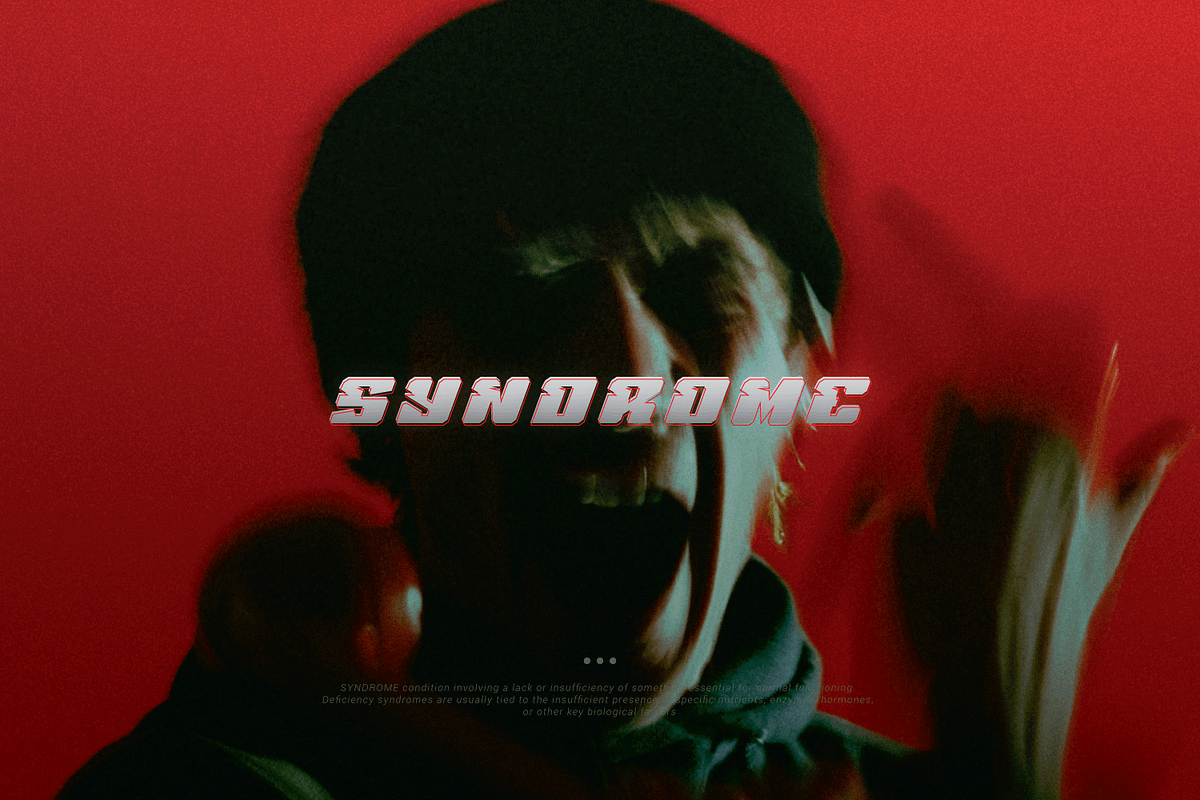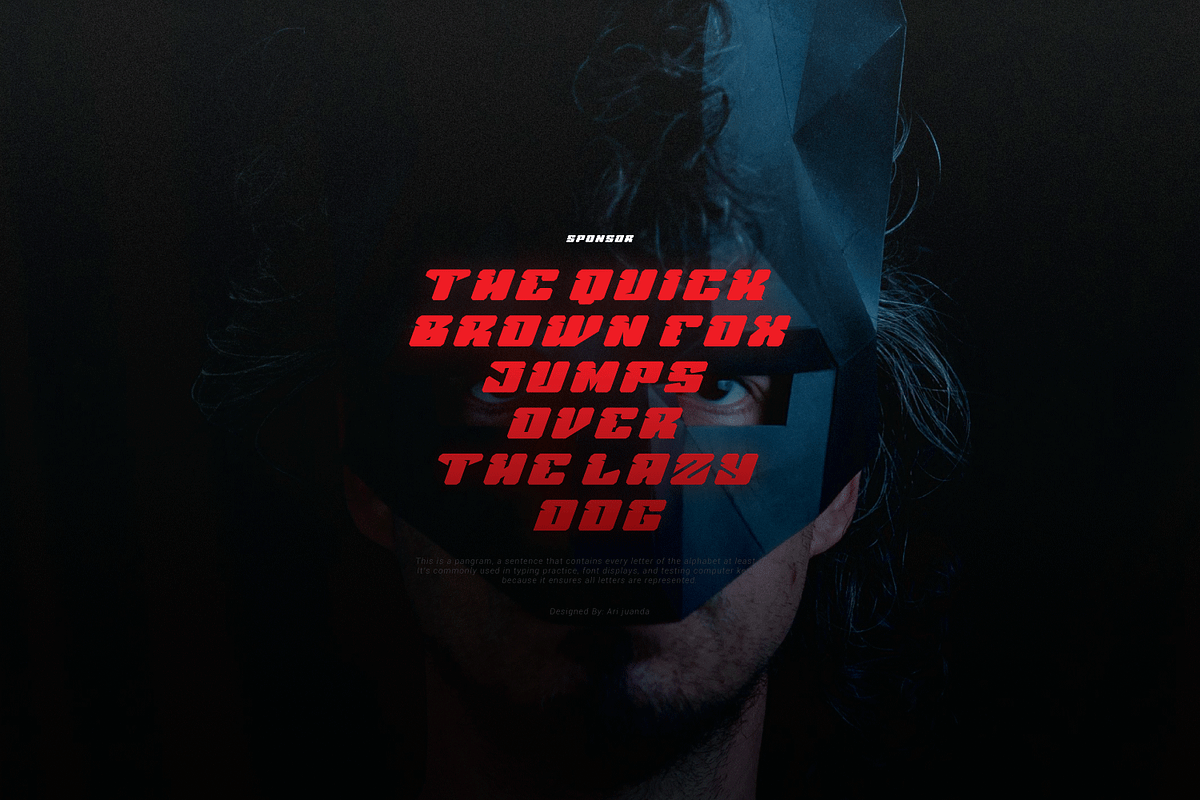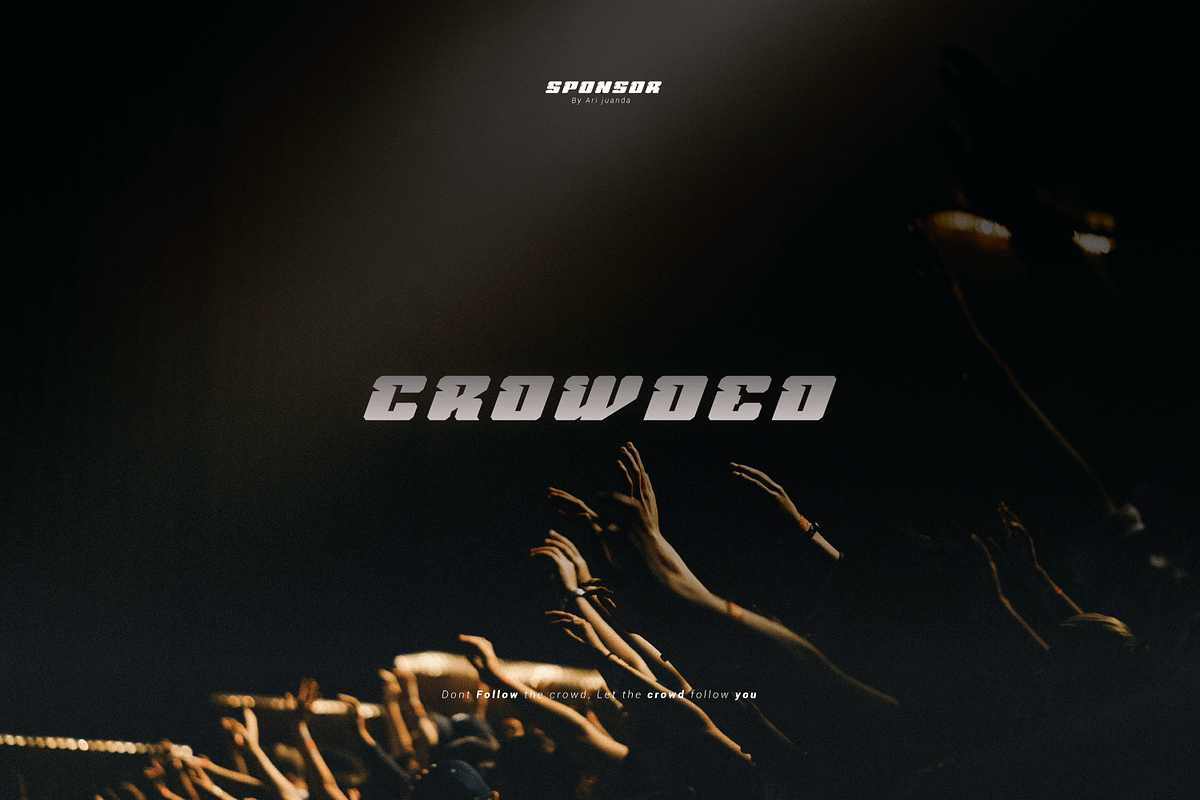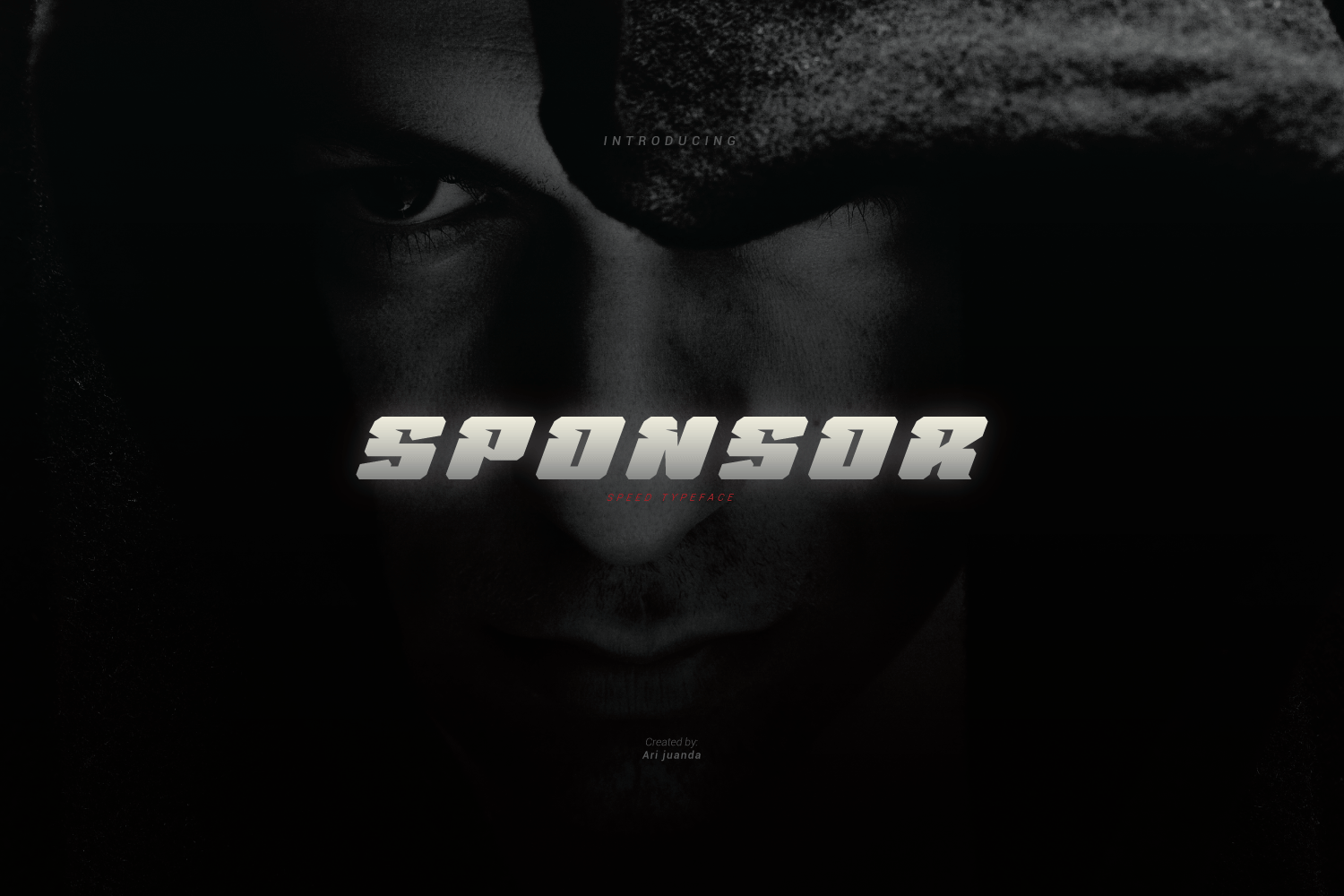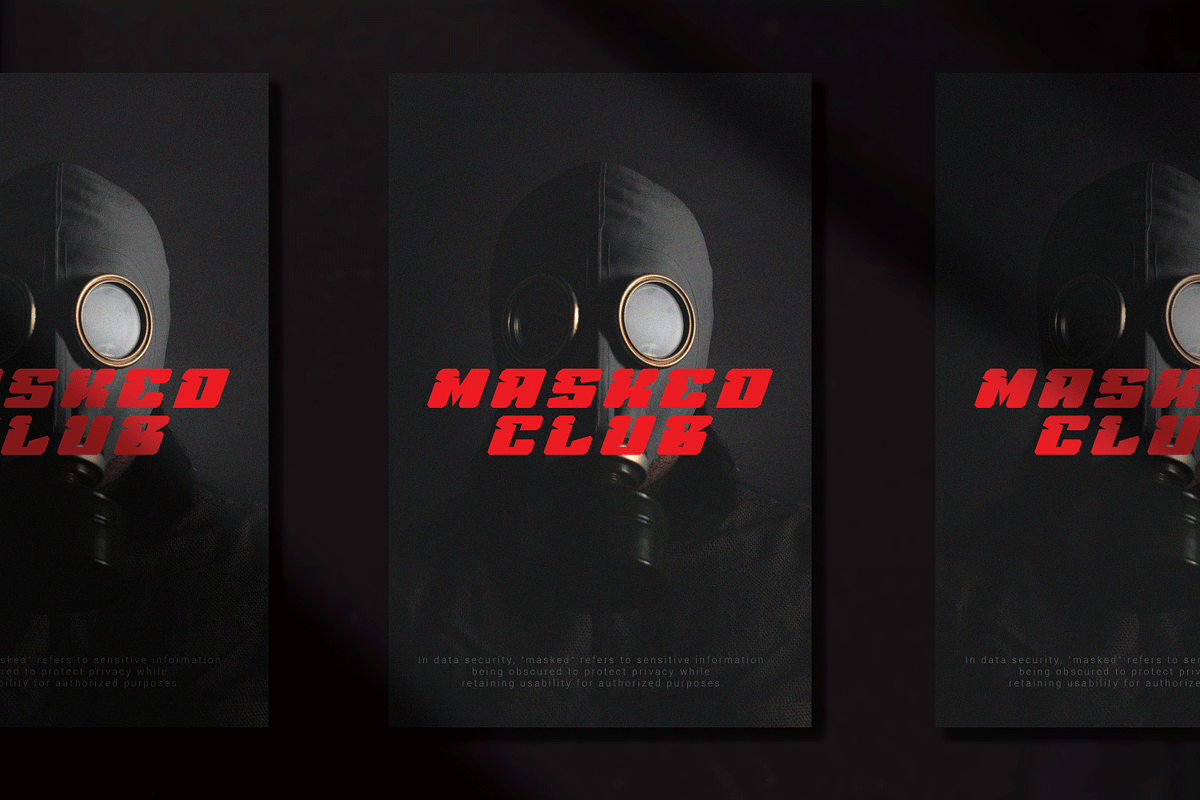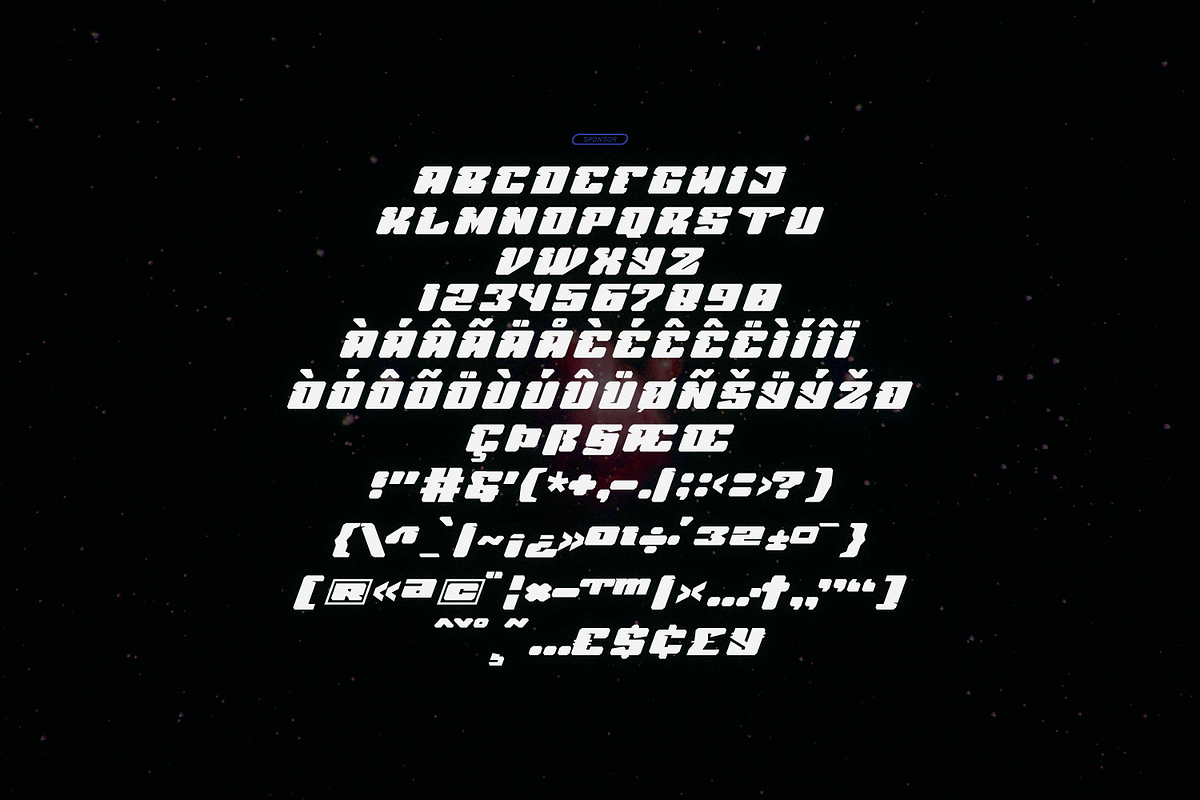
Sponsor a typeface
Inspired by science fiction films combined with a sports theme, the font ''Sponsor'' was created.
The uniqueness of this font includes, in addition to its slanted shape which gives a dynamic impression, also in each body structure of the letter of this font there are notches or slices to give a sharp and strong impression, so that it is suitable for various design projects that require an active and strong appearance such as sports logos, labels, posters, sportswear designs, sports club branding, and others.
- Supports Multi linguage (Latin Western Europe),
- Numbers and Punctuation